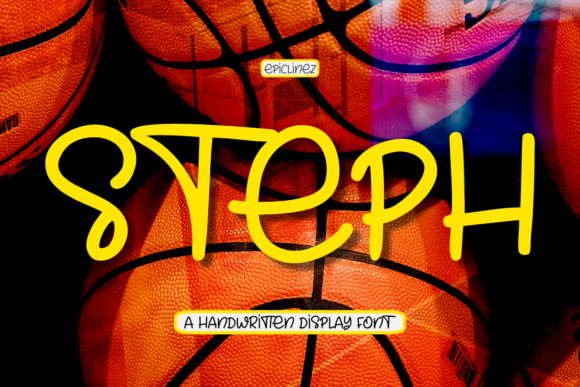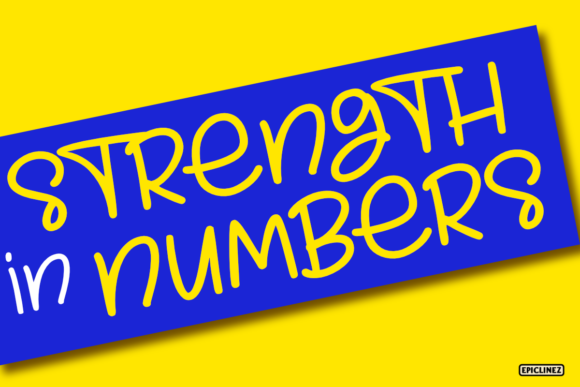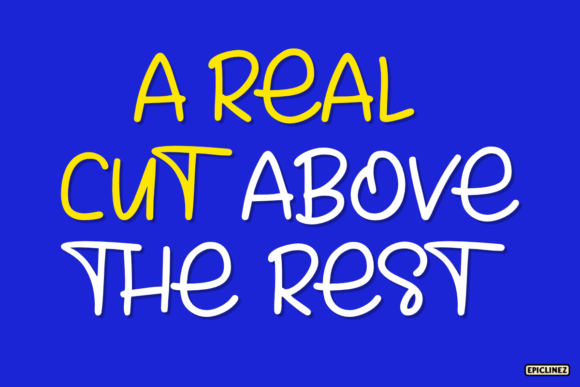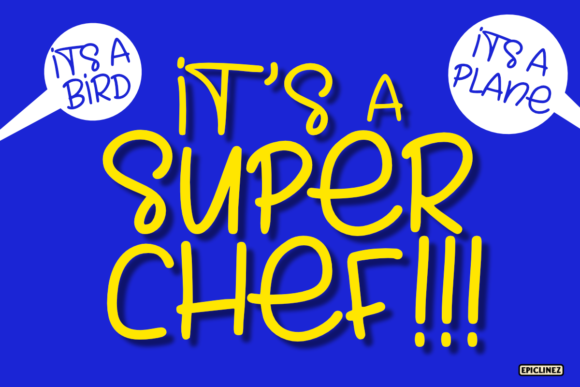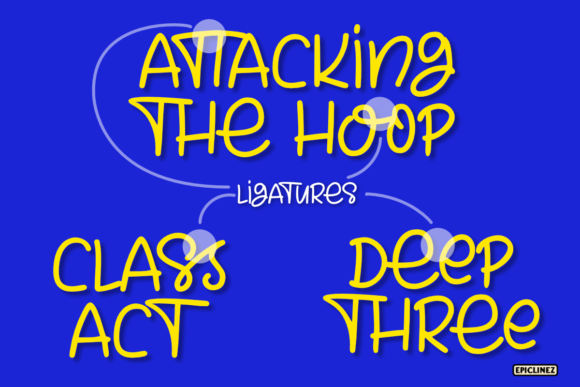
Steph Font
About Steph Font
Steph is an authentic handwritten font. This fun and smooth font has a flowing and versatile styles that will appeal to a wide range of crafty ideas, from letterheads and titles, to stationery.